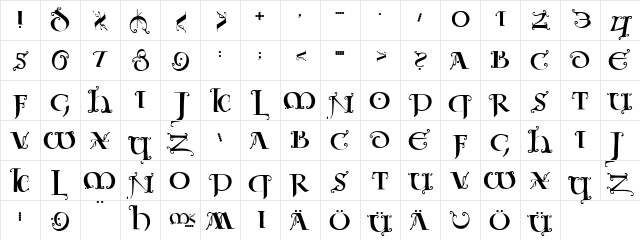
UncialeOrnamentale Regular
Design Context for UncialeOrnamentale Typeface
UncialeOrnamentale is built around its visual character rather than neutral utility — its distinctive forms are designed to make an impression at display sizes.
Font Pairing: Pair with a clean neutral sans-serif for body copy to let UncialeOrnamentale's character lead without overwhelming the composition.
Pro Tip: Use UncialeOrnamentale exclusively at display sizes — it was designed to be seen, not read at length. Let a neutral companion handle body copy.